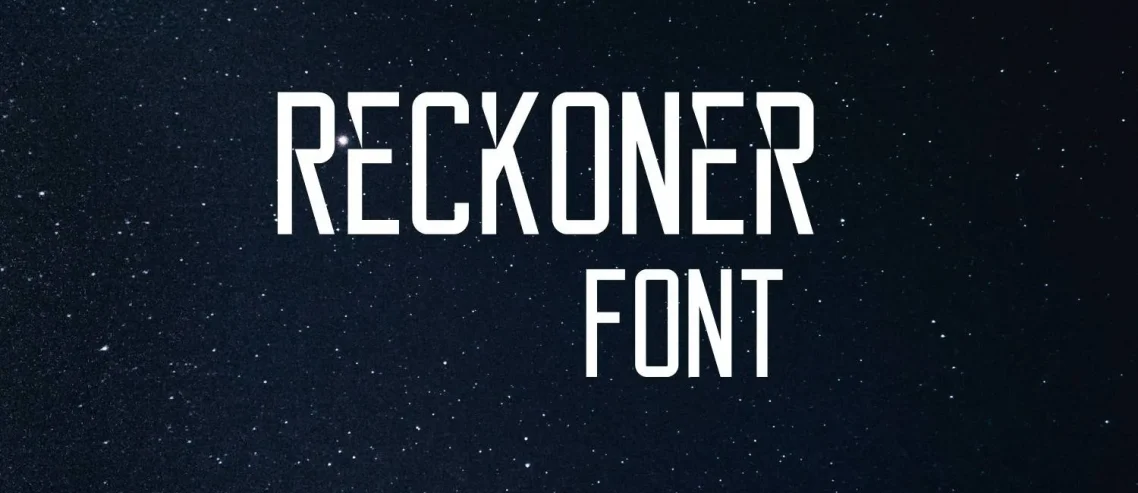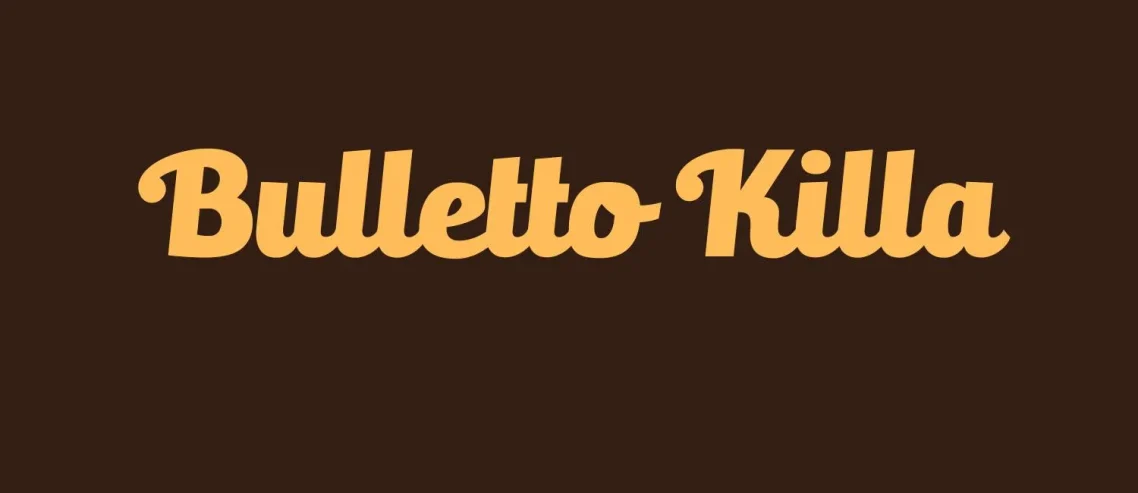
Bulletto Killa Font Free Download
Bulletto Killa Font has bold characters with slightly extended fancy edges. This appealing typeface belongs to the script font family. The thick and high x-axis height characters give it a high readability score. This typeface has a pairing ability with the Rupee Foradian Font and it will help you boost your project. View of Bulletto …
Santral Font Free Download
Santral Font is a beautiful serif Typeface with a touch of modernity. It is perfect for any formal or professional document, and also great for personal projects. This Font has been around since 2012 and was created by designer Måns Grebäck. If you’re looking for a serif typeface with a modern twist, Santral Typeface is …
Bison Font Free Download
Bison Font belongs to the sans-serif family and was created by the well-known designer Ellen Luff. This font is available in OTF and TTF formats. This font has an illustrious past when it comes to its pairing history. You can match it with the famous impact font which is well-known for its bold and strong …
Reckoner Font Free Download
Reckoner Font is a sans-serif typeface designed by Vassil Kateliev. The design is based on the geometric shapes of circles and triangles. Reckoner Typeface was released in 2012 and is currently available in four weights: light, regular, bold, and black. The typeface supports Latin, Cyrillic, and Greek character sets. You can mix the typeface with …
Colonial Font Free Download
Colonial Font is a typeface that was designed in the early eighteenth century. It is characterized by its large size and heavy weight. This Font was used for the first time in the Boston Gazette, which is the first newspaper in America. This Font became very popular in America during the Revolutionary War. Many of …
Dot Matrix Font Free Download
Meet the Dot Matrix Font – a blast from the past that brings the cool, pixelated vibes of early computer printing into the present. Picture those old-school printers and the unique charm of characters made up of tiny dots – that’s the essence of the Dot Matrix Font. It’s not just a font; it’s a …